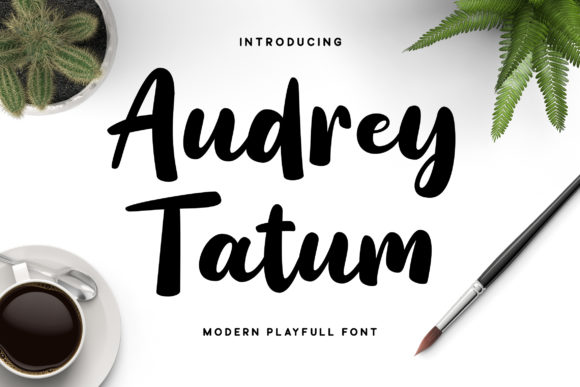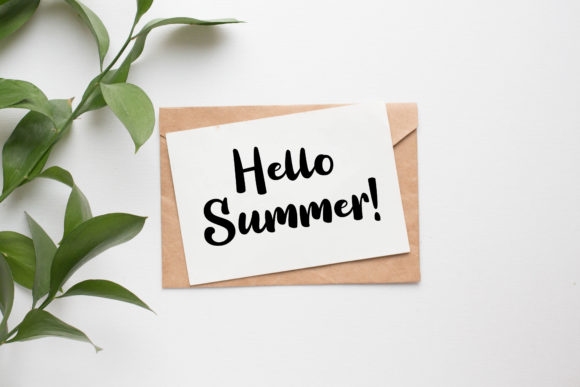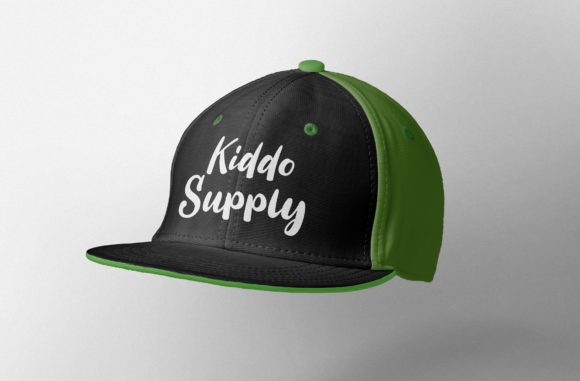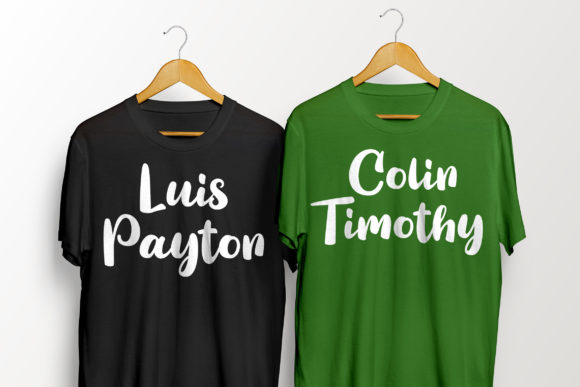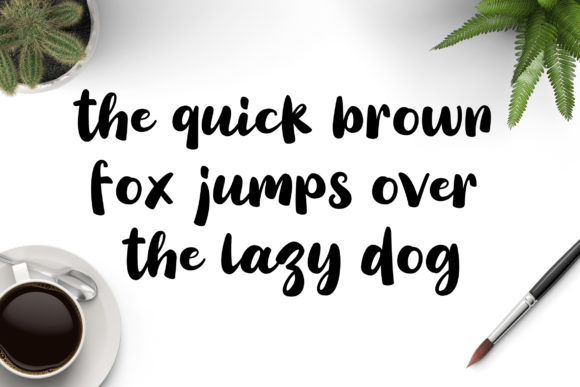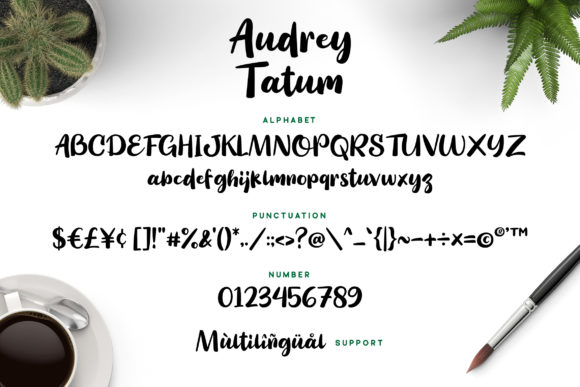
HomeScript FontsAudrey Tatum Font Script Fonts Audrey Tatum Font FacebookXPinterestWhatsApp Audrey Tatum Font Poster 2 Audrey Tatum Font Poster 3 Audrey Tatum Font Poster 4 Audrey Tatum Font Poster 5 Audrey Tatum Font Poster 6 About Audrey Tatum Font Audrey Tatum is a modern and playful handwritten font with a cool twist. Get inspired by its unique look! DOWNLOAD ON CREATIVE FABRICAThis font is sold and delivered by Creative Fabrica. Font Canyon may earn a commission if you buy through this link. People also explored Marthens Font Handwritten Fonts Bundle Pride Font Water Seven Font Northampton Font Bryan Coyne Font Bloom Font Songs Style Font Sumper Remonge Font 305 0 TagsAudrey Tatum Font Previous articleOlivade FontNext articleBrushella Font LEAVE A REPLY Cancel reply Comment: Please enter your comment! Name:* Please enter your name here Email:* You have entered an incorrect email address! Please enter your email address here Website: Save my name, email, and website in this browser for the next time I comment. Personal Use Free First Be Lucky Personal Use Free Read more about this font Tomatoes Personal Use Free Read more about this font Hello Holiday Personal Use Free Read more about this font Engine Personal Use Free Read more about this font BLOG Top 10 Handwritten Fonts That Elevate Your Designs Top 10 Handwritten Fonts That Will Elevate Your Designs Handwritten fonts bring a warm, personal touch to every creative project. Whether you're designing logos, invitations,... Where to Buy American Fonts Online in 2024 Best Fonts for YouTube Videos: Make Your Thumbnails Stand Out How to Install and Use Fonts on Windows, macOS, and Web Projects